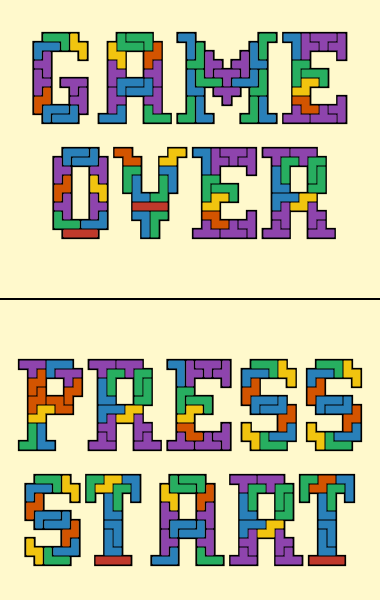
Game Over
UPDATE
I discovered via this article (http://fontsinuse.com/uses/8007/future-exhibitions-n-1) that geneus1 created a similar font (http://fontstruct.com/fontstructions/show/75591) to this one in 2008. Despite the obvious similarities, I did not know of geneus1's font until 2014/11/28.
Based on Tetris blocks. I tried to avoid using too many 1x4 and 2x2 blocks. I also tried to make each character self-supporting...meaning the blocks are built up from the bottom and the upper blocks are supported by the lower ones and not just floating in mid-air. Due to some design decisions and time constraints, I didn't achieve this with every character.
Interesting idea with good execution and beautiful samples.
Remarkable work based on tetrominoes (polyominoes containing 4 squares joined by complete edges). I like you've labeled each tetromino, including the mirror pairs, with different colours. You could take this challenge to another level by using pentominoes, or even hexominoes. 10/10
I like that: Very readable , nice modular font with clear lines & beautiful sample
Great execution. Using less of 1x4,2x2 blocks brings a nice effect to this font overall. :) I wonder if it is possible to create one such without floating blocks. That would be a great challenge.
Very effective and great samples.
I updated E, F, Z, 5, and 7 to get closer to my goal of having each character be self-supporting.
A few more to go...
C, G, Q, S, 2, 3, and 6 have a S / Z block
I'm not sure what you mean by "have a S / Z block".
They have a floating S block or Z block
┌───┐
└─┐...└─┐
......└───┘
......┌───┐
┌─┘...┌─┘
└───┘
Ah, yes I understand now. I mentioned in the description that I tried to make each character self-supporting...meaning the blocks are built up from the bottom and the upper blocks are supported by the lower ones and not just floating in mid-air. However, due to some individual character design decisions and time constraints, I did not achieve this with every character.
M has a floating T block
E has a floating -| block
The E in the sample does have a floating block, but the current E does not. I just never updated the sample.
i wonder if you add more glyphs and move alternates in private use area in Uptake maybe?